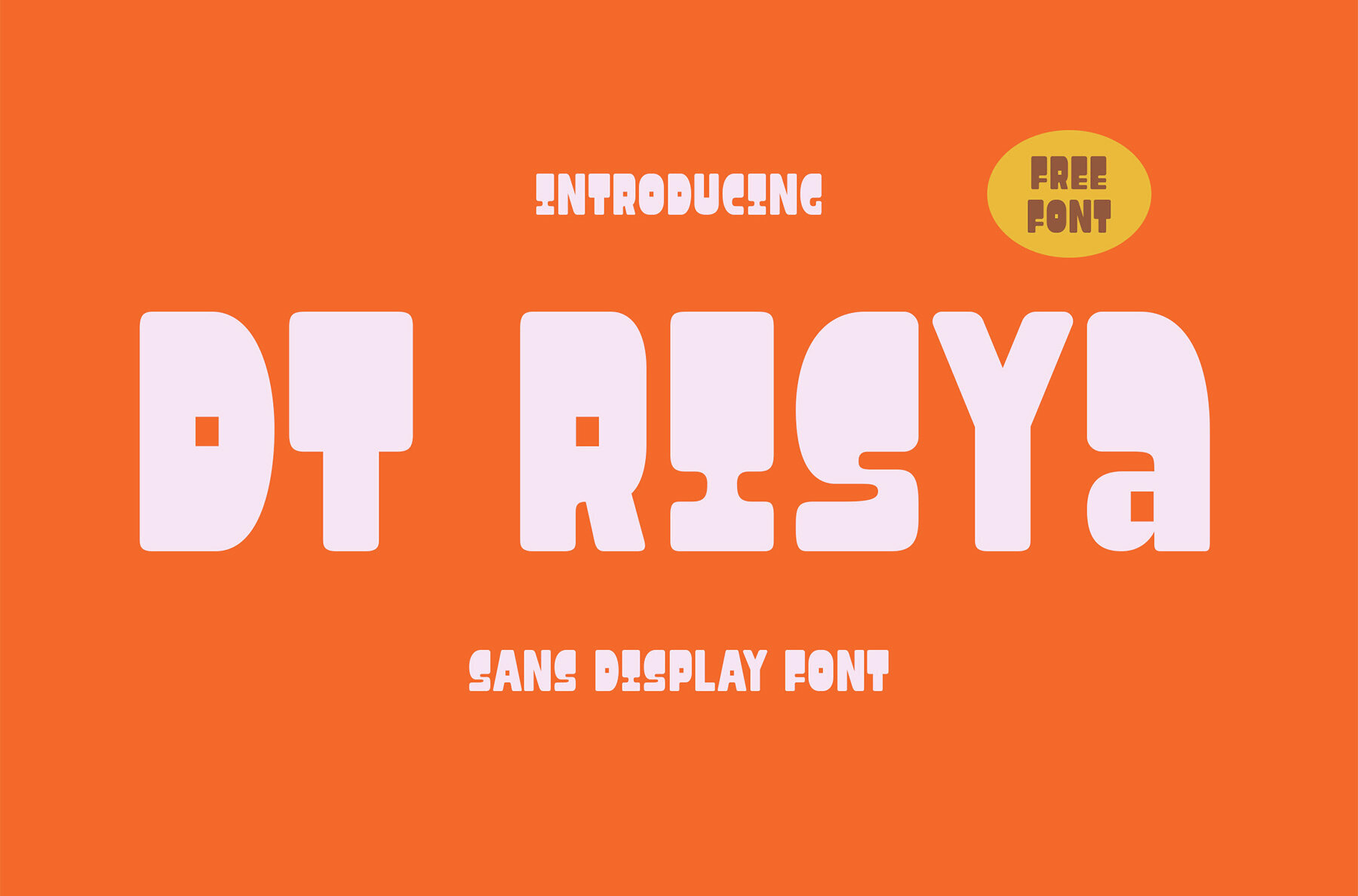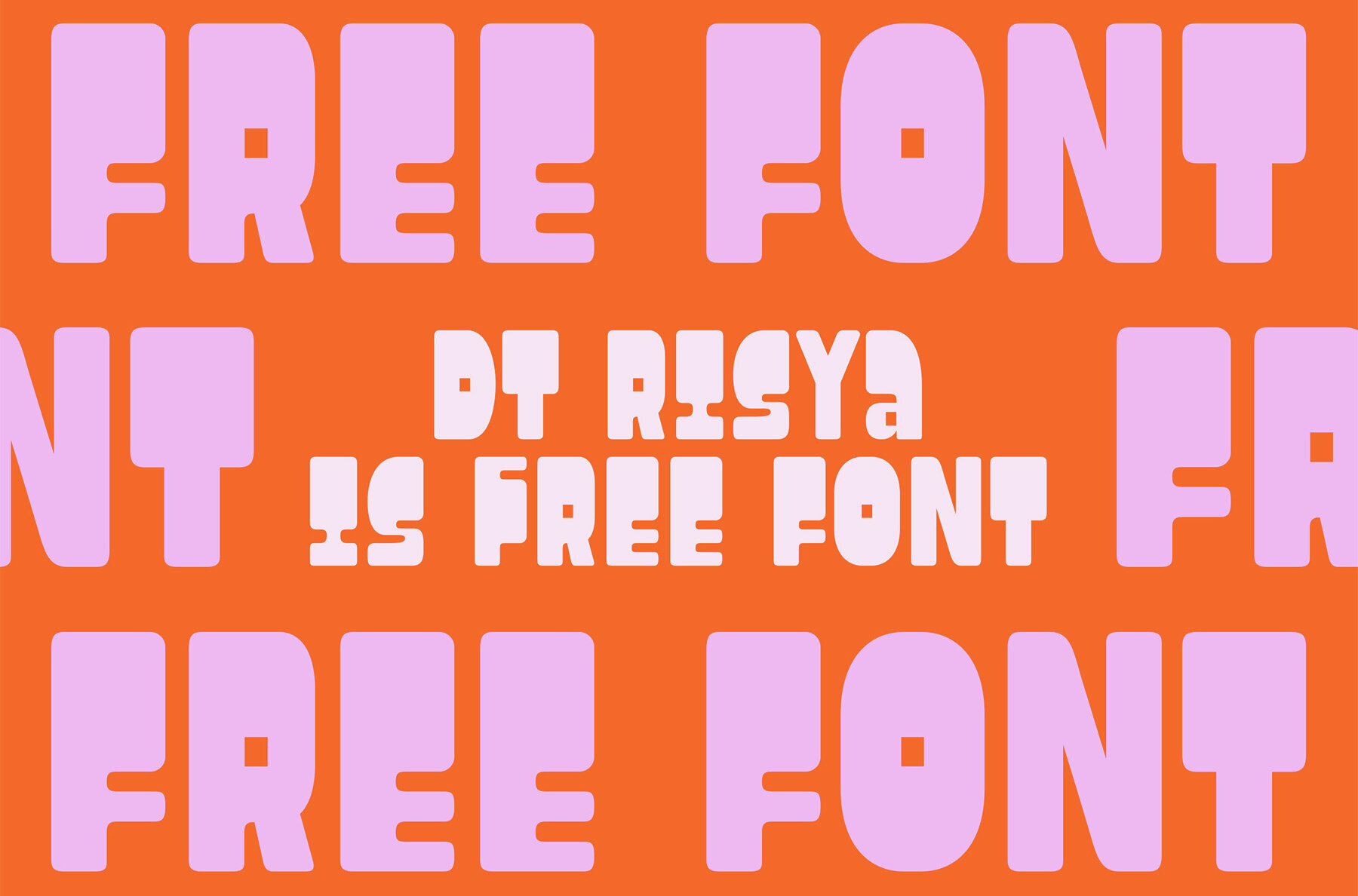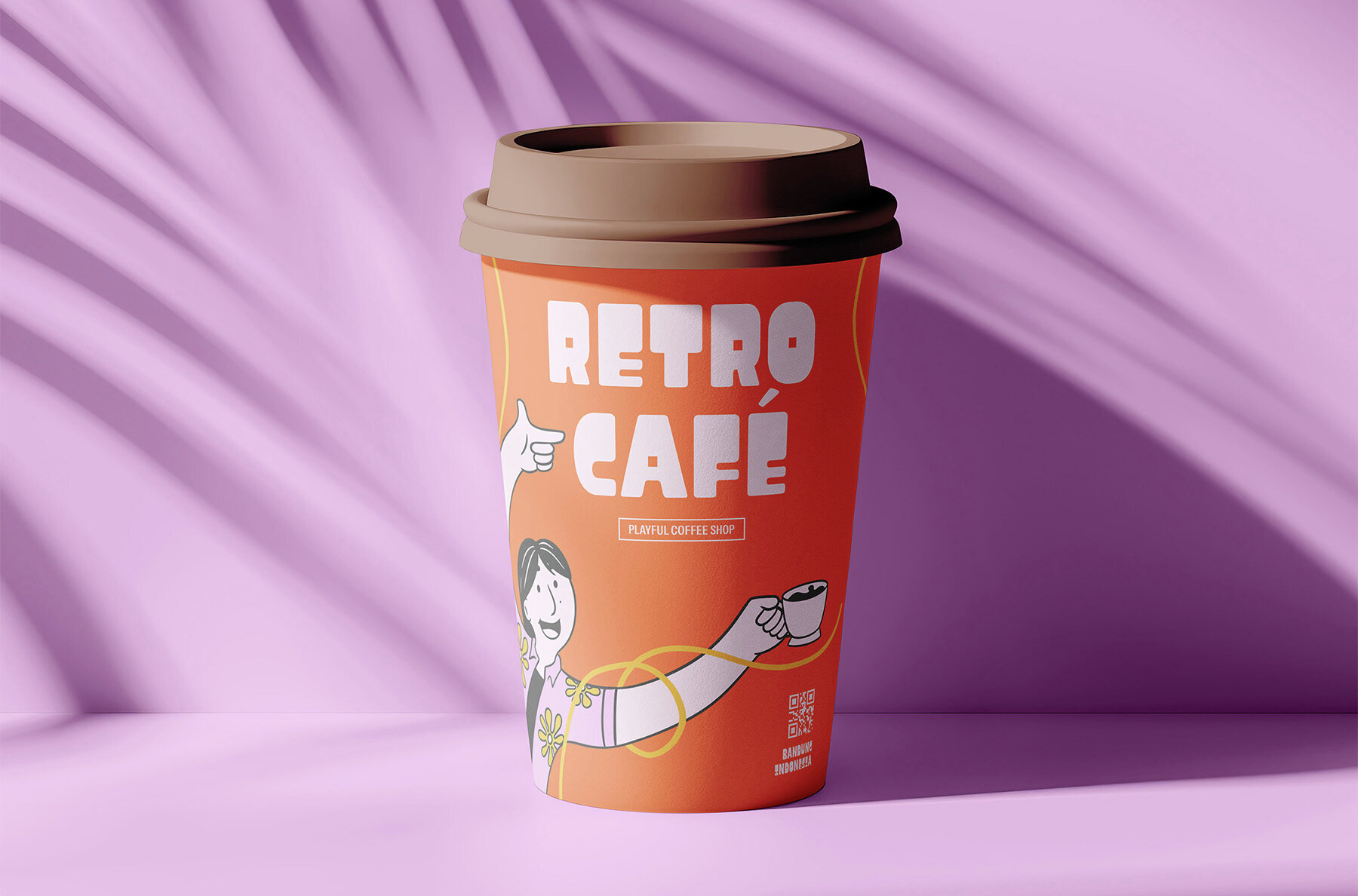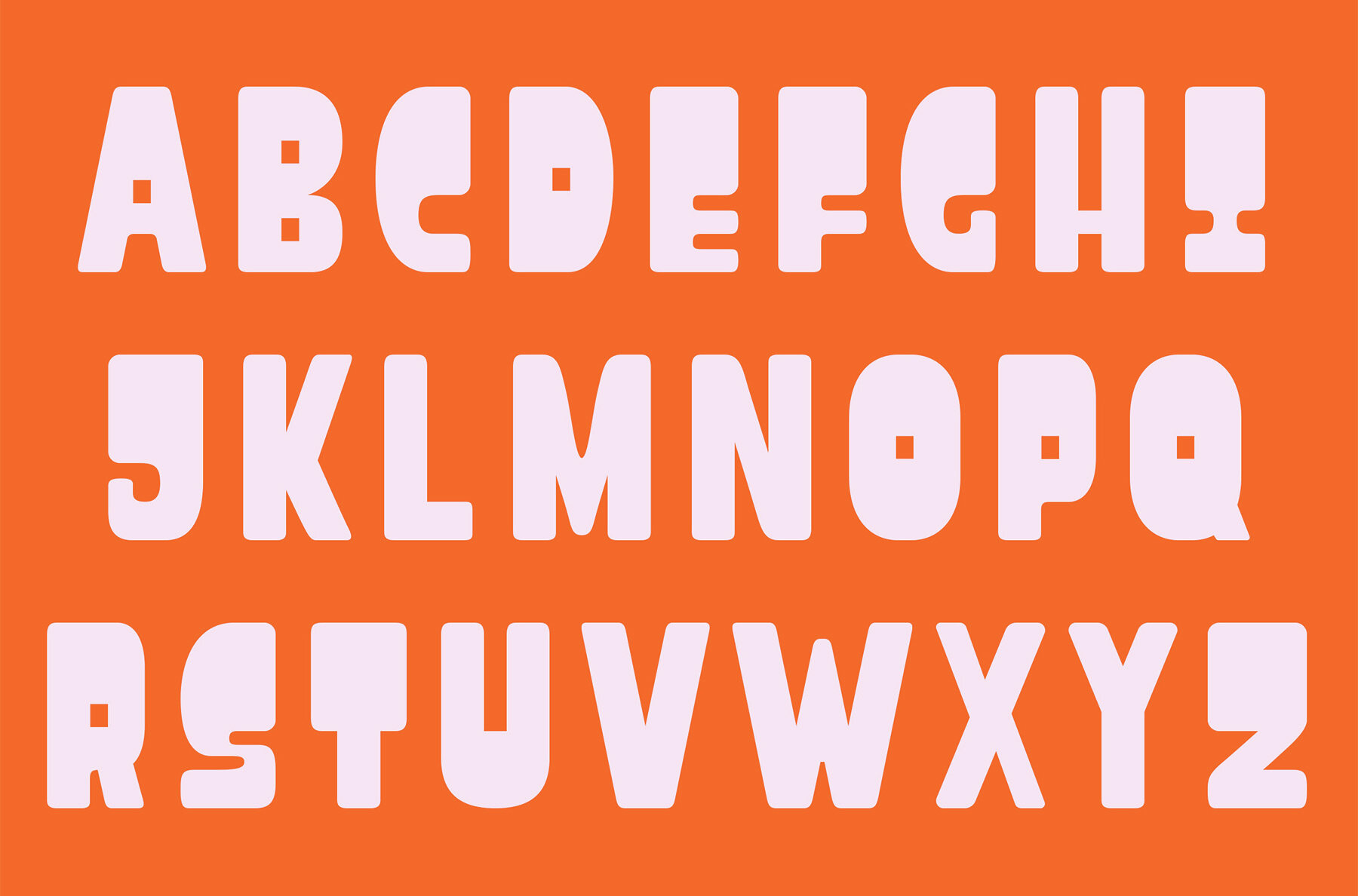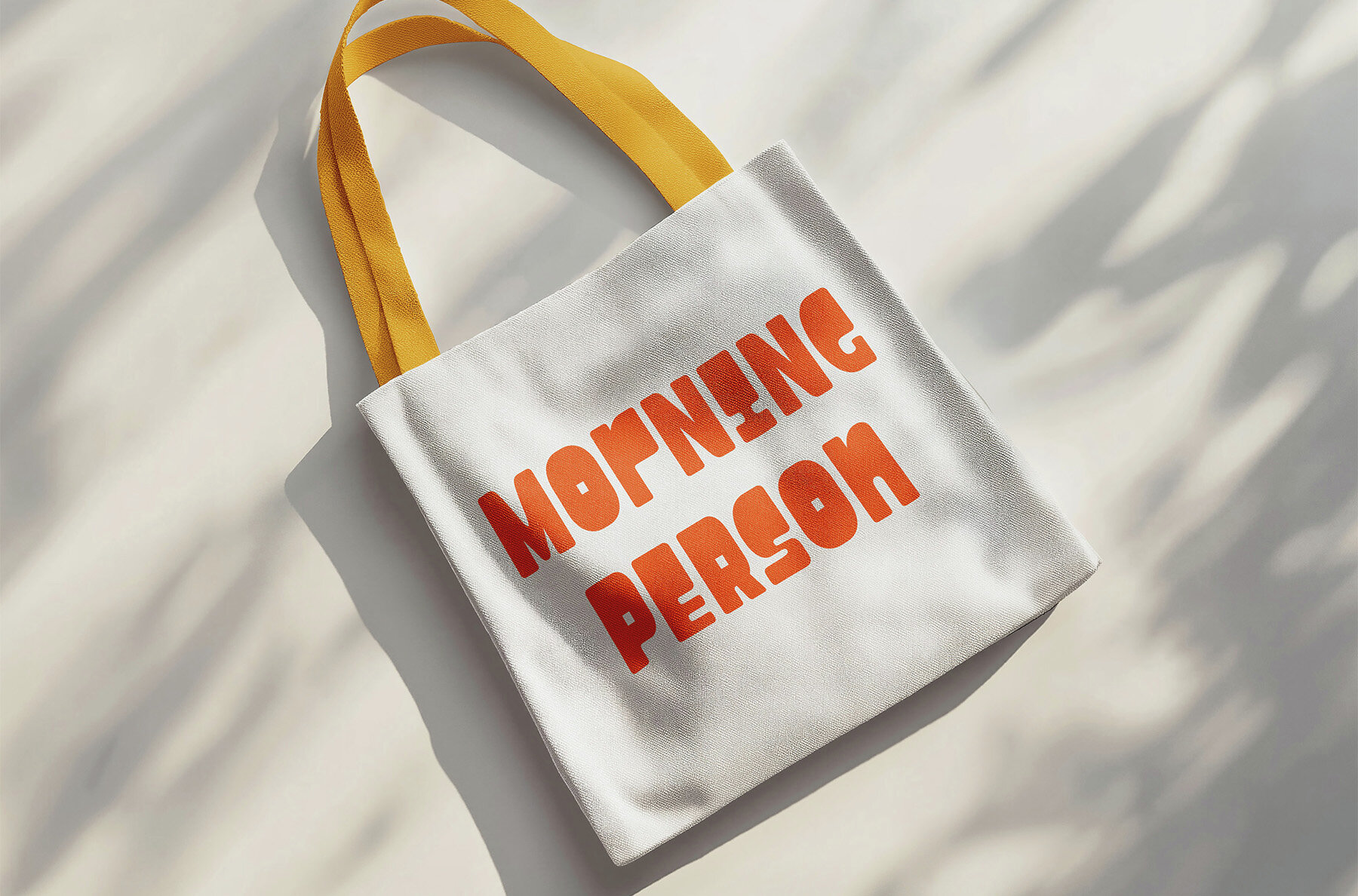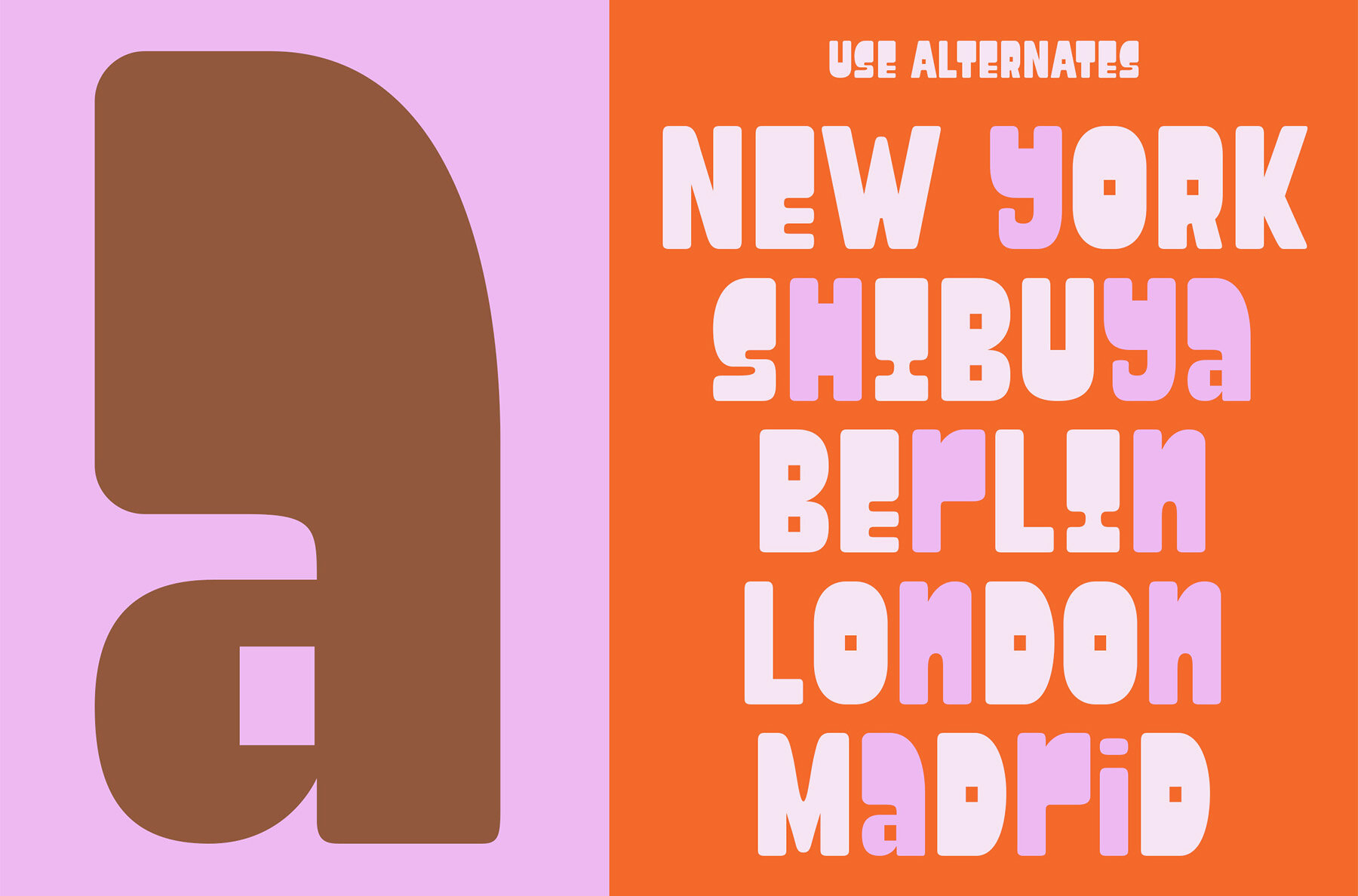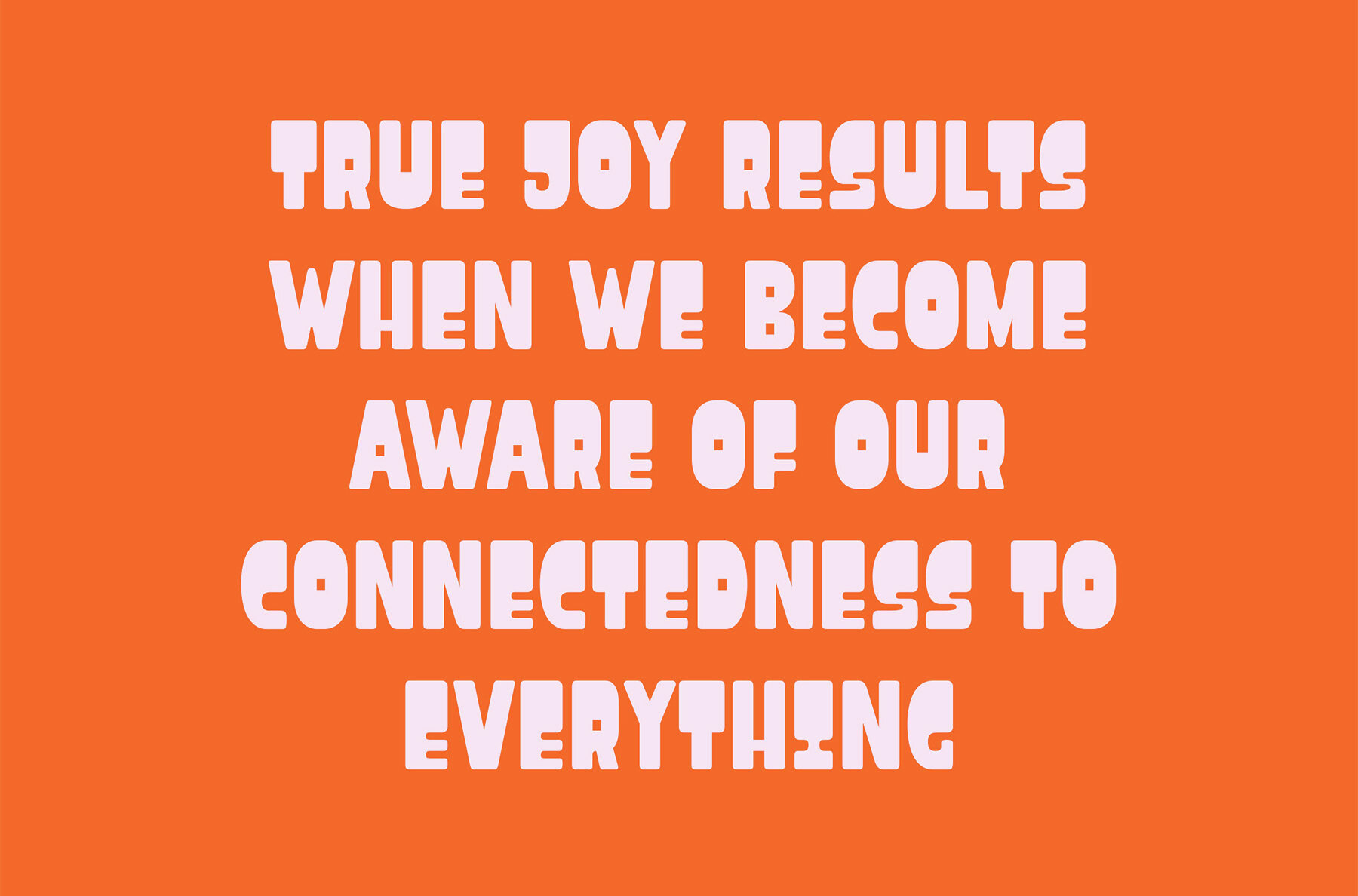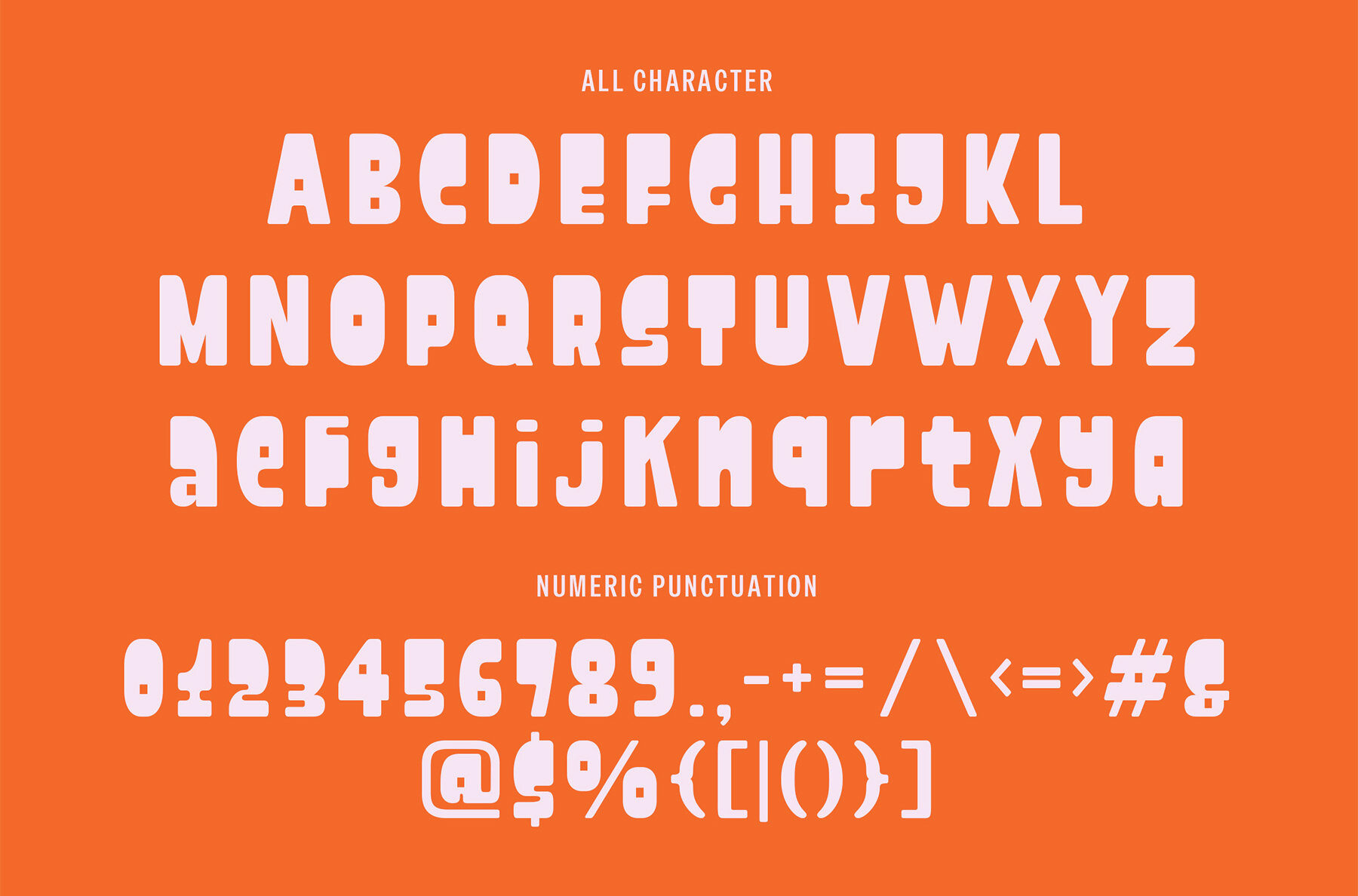
DT Risya Font
DT Risya
DT Risya captures the playful essence of youthful creativity with a retro flair. This versatile font lends itself beautifully to a variety of designs, bringing a unique charm to each project.DT Risya: Playful Retro-Inspired Typeface